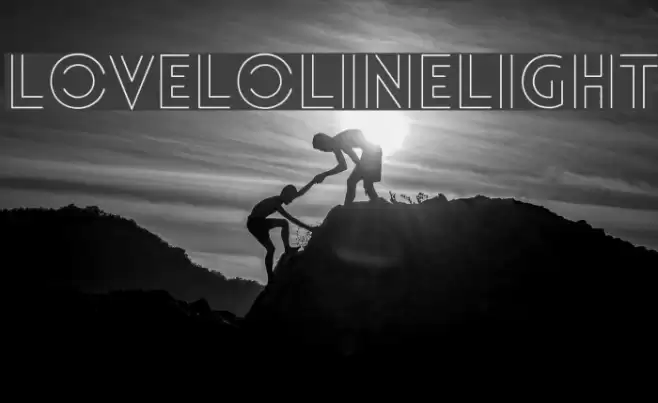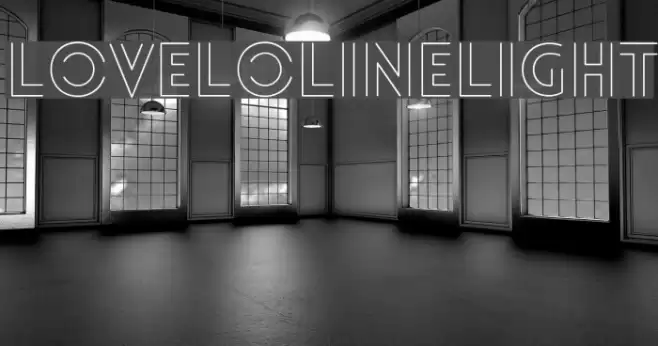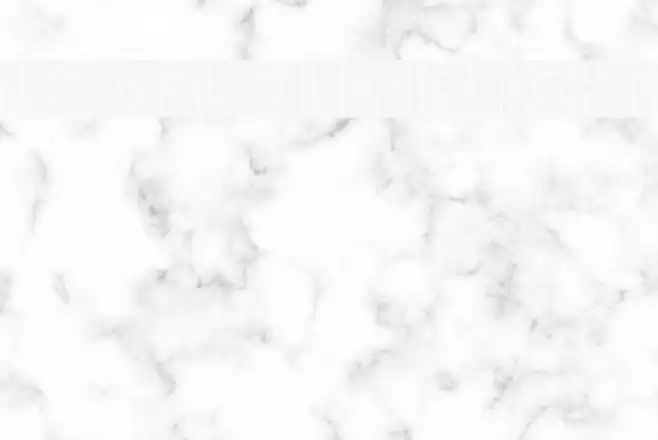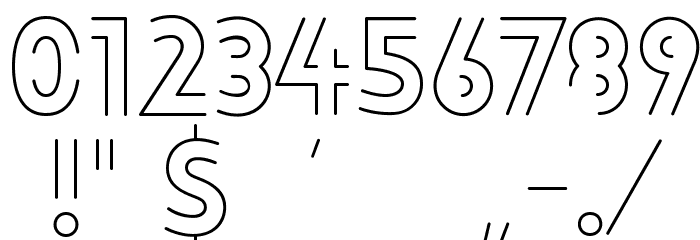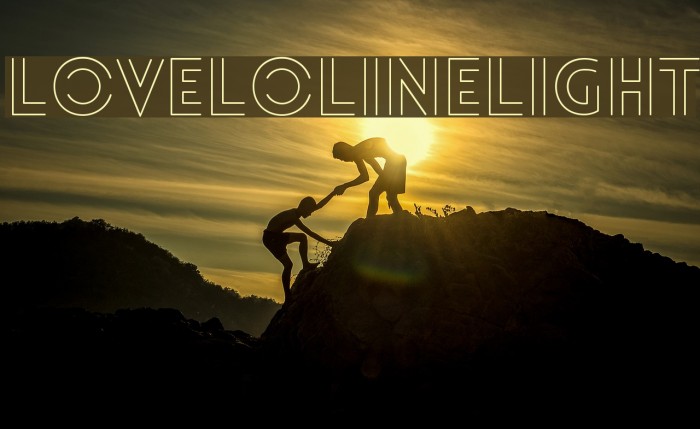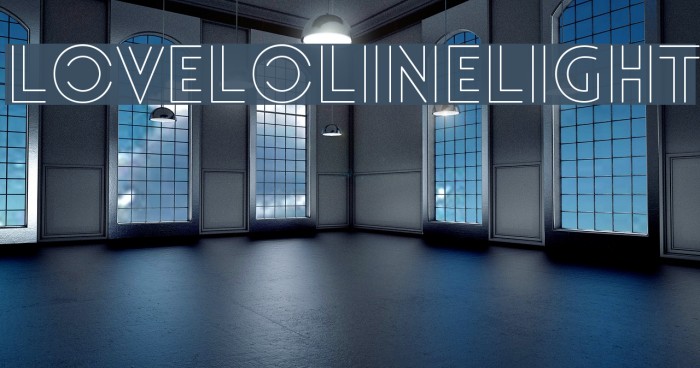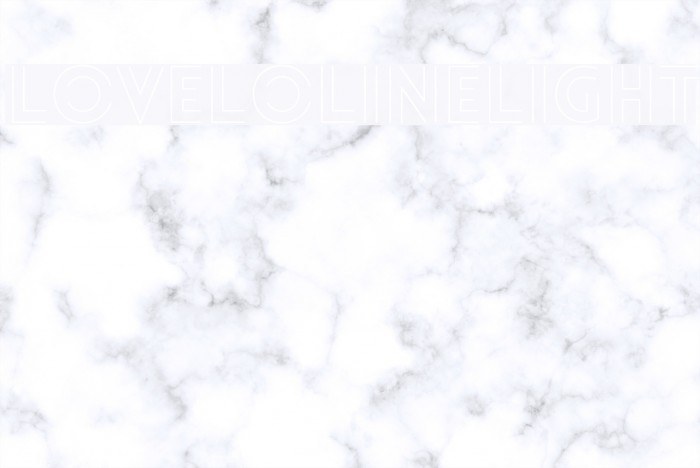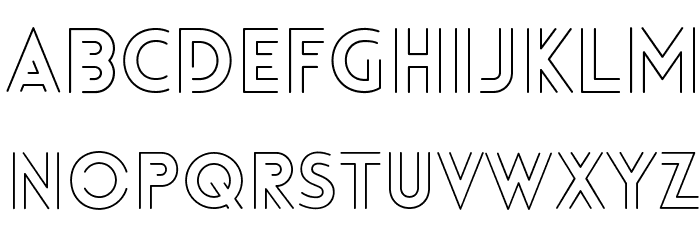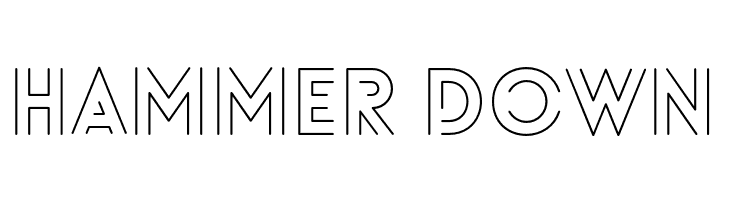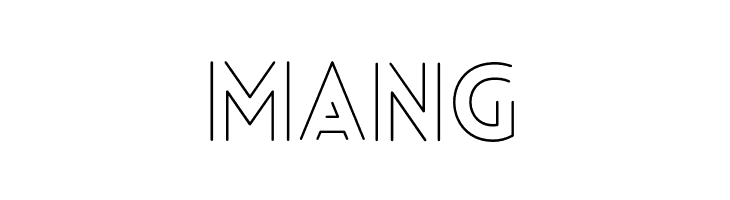
LoveloLineLight
This font features a modern, geometric design with clean lines and a minimalist aesthetic. The characters are constructed with a double-line style, creating an outline effect that is both striking and elegant. The uppercase and lowercase letters maintain a consistent width, contributing to a uniform appearance. The numbers and special characters follow the same design principles, ensuring cohesion across all elements. This font's simplicity and clarity make it suitable for a variety of design applications, from digital media to print.
A modern, geometric font with a double-line, outline style.
- Proposed Projects: Ideal for branding, logos, headlines, posters, and digital media where a contemporary and stylish look is desired.
- Weight: Light
- Use Case: Headlines, Logos, Posters